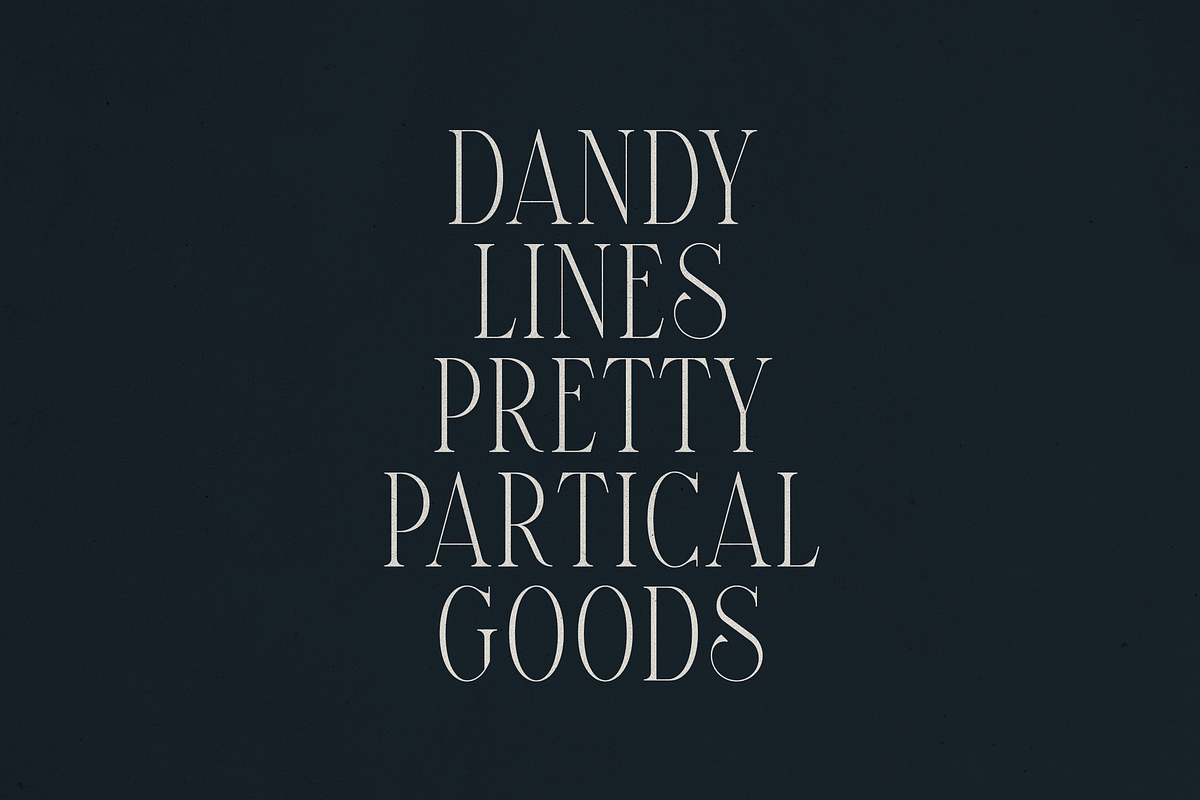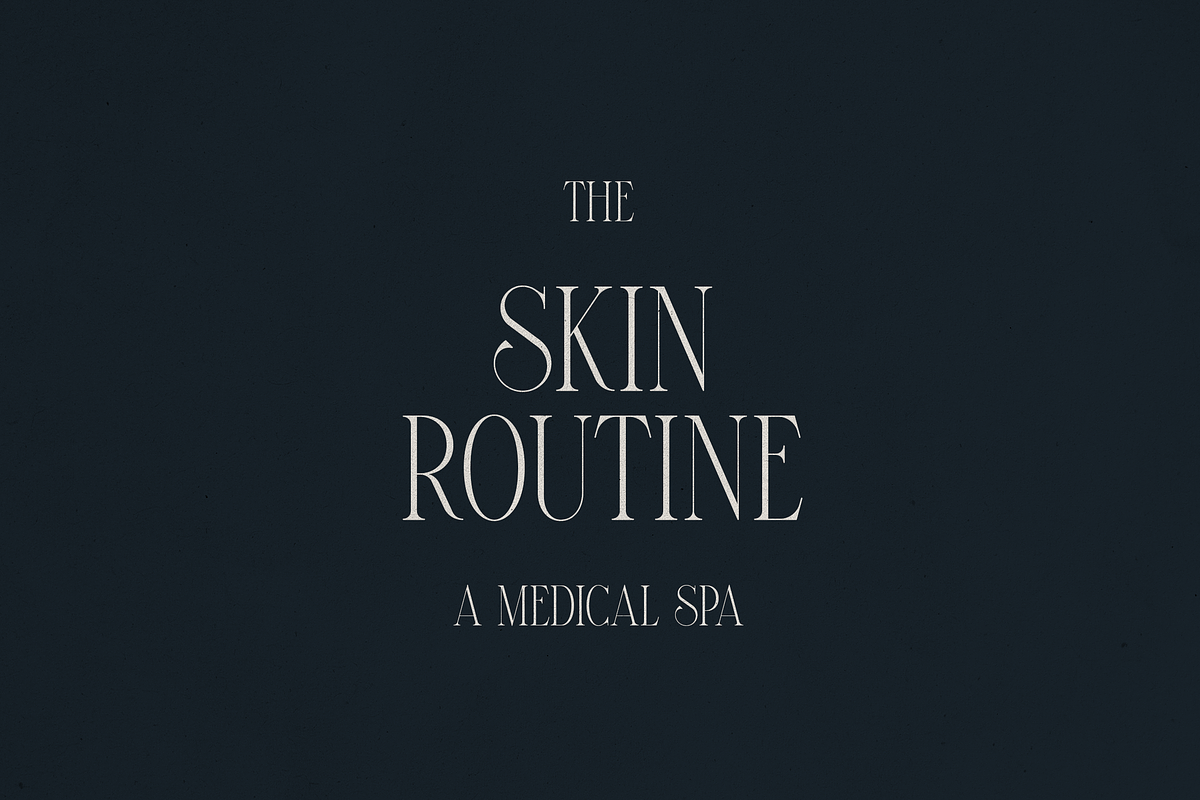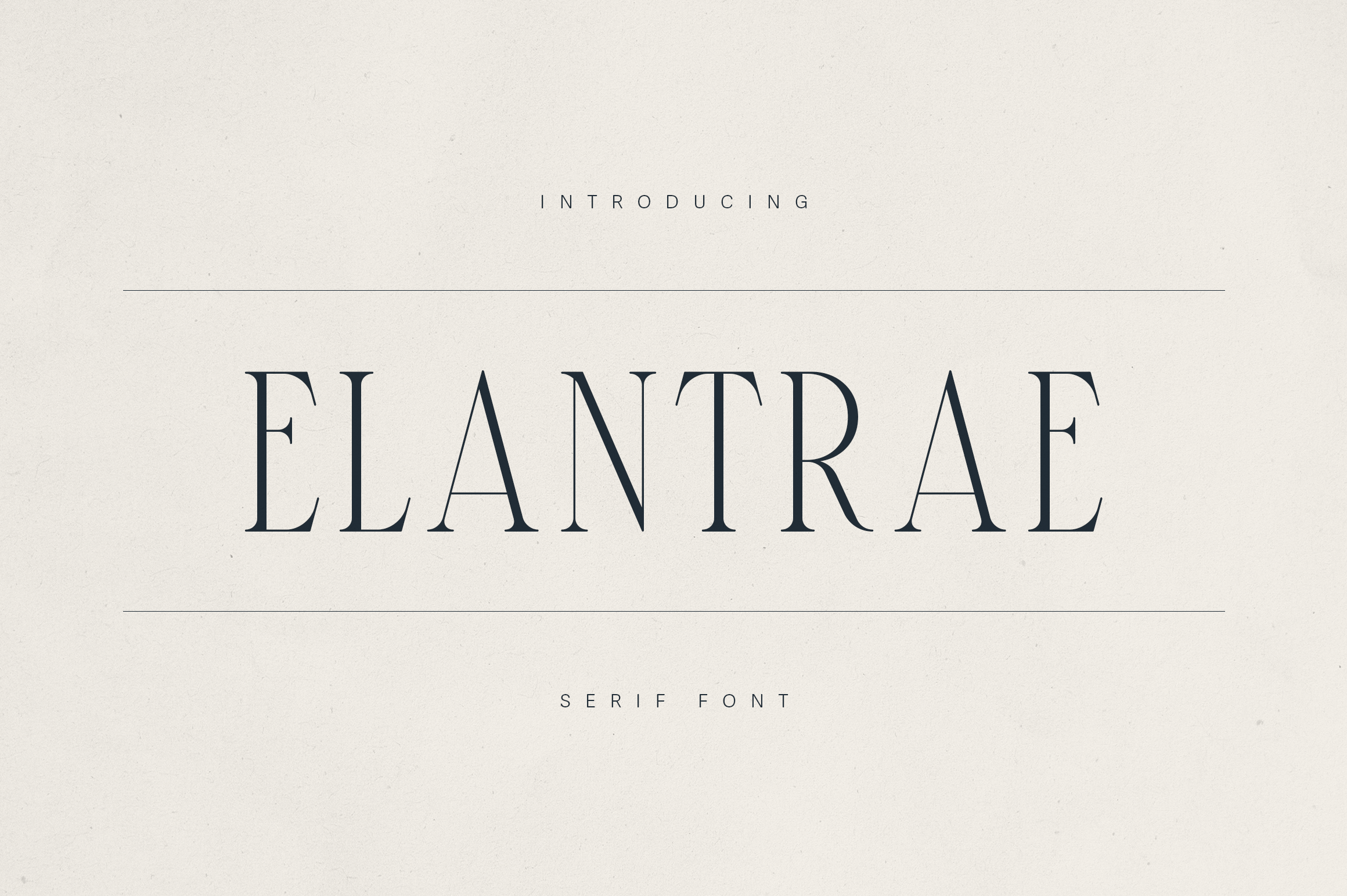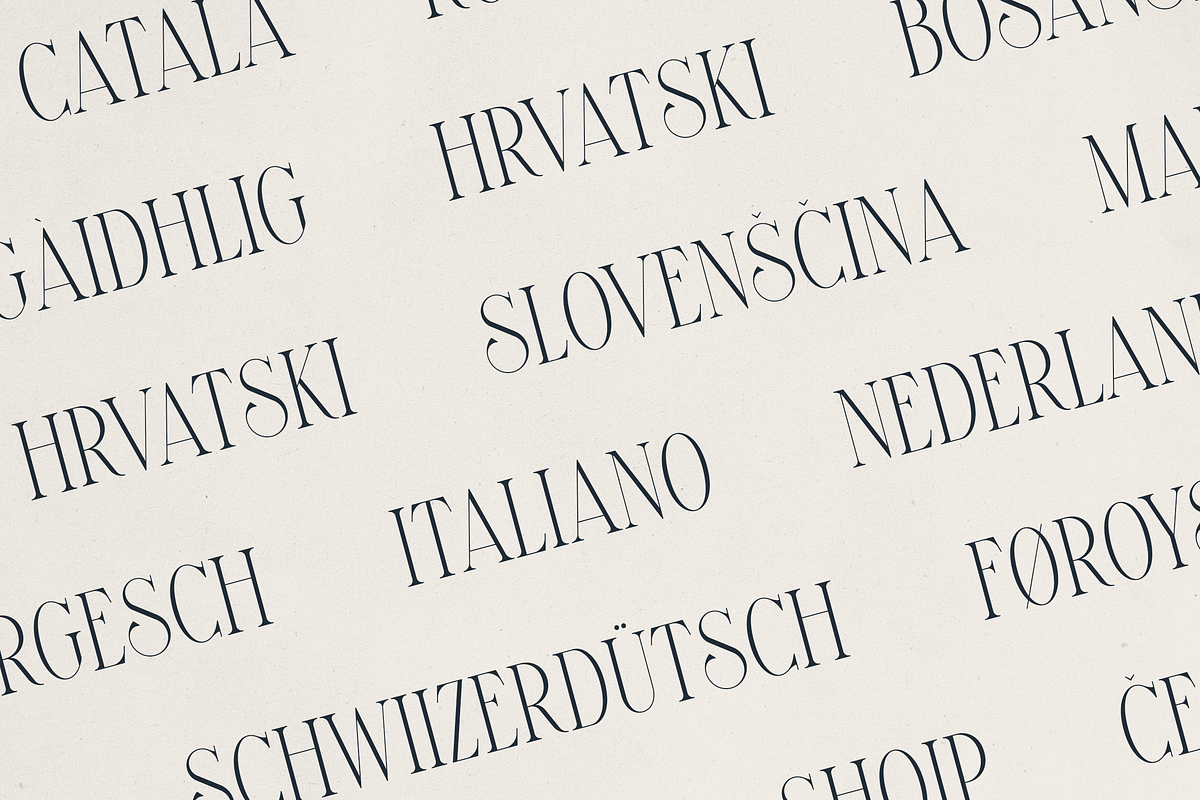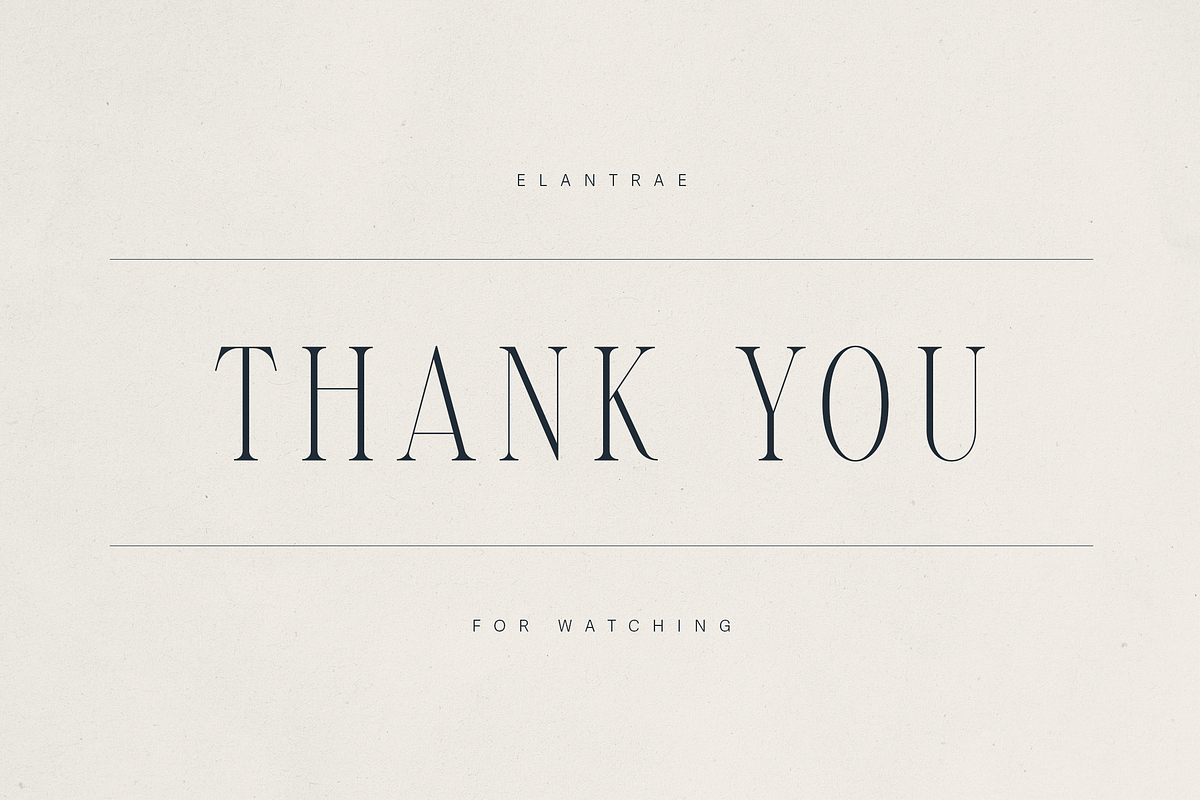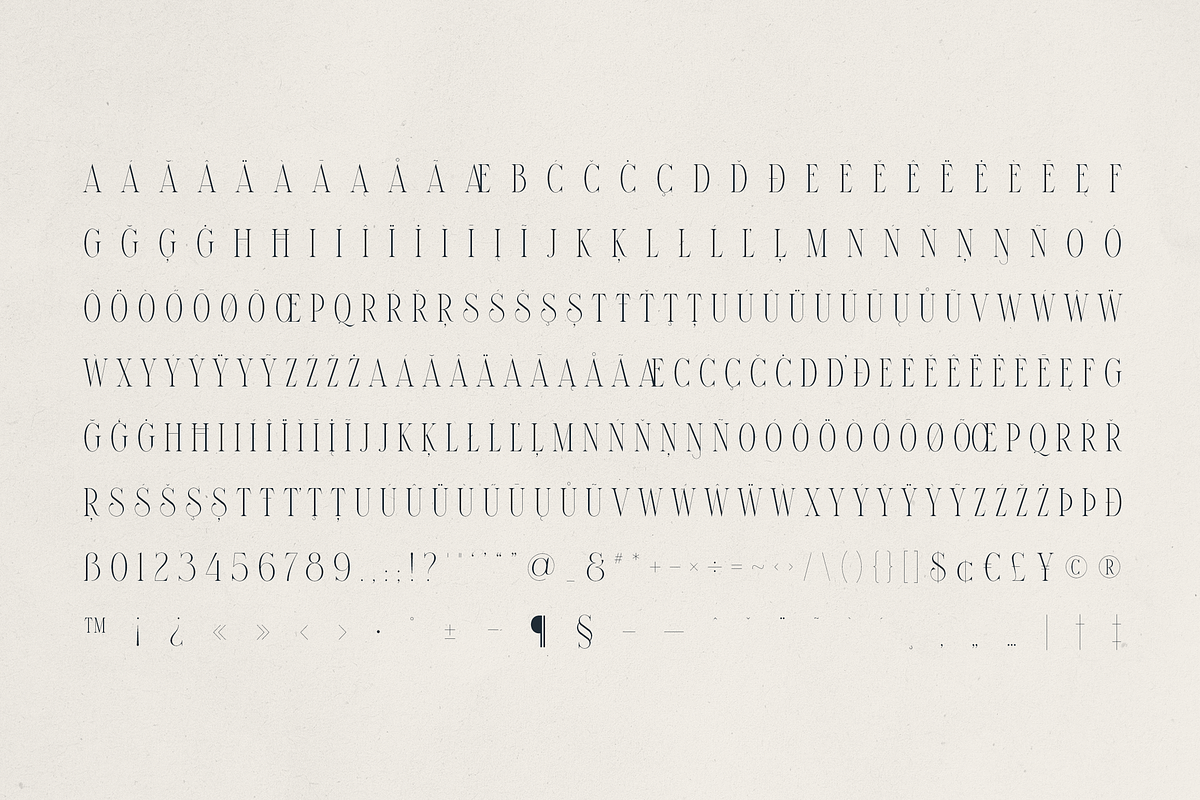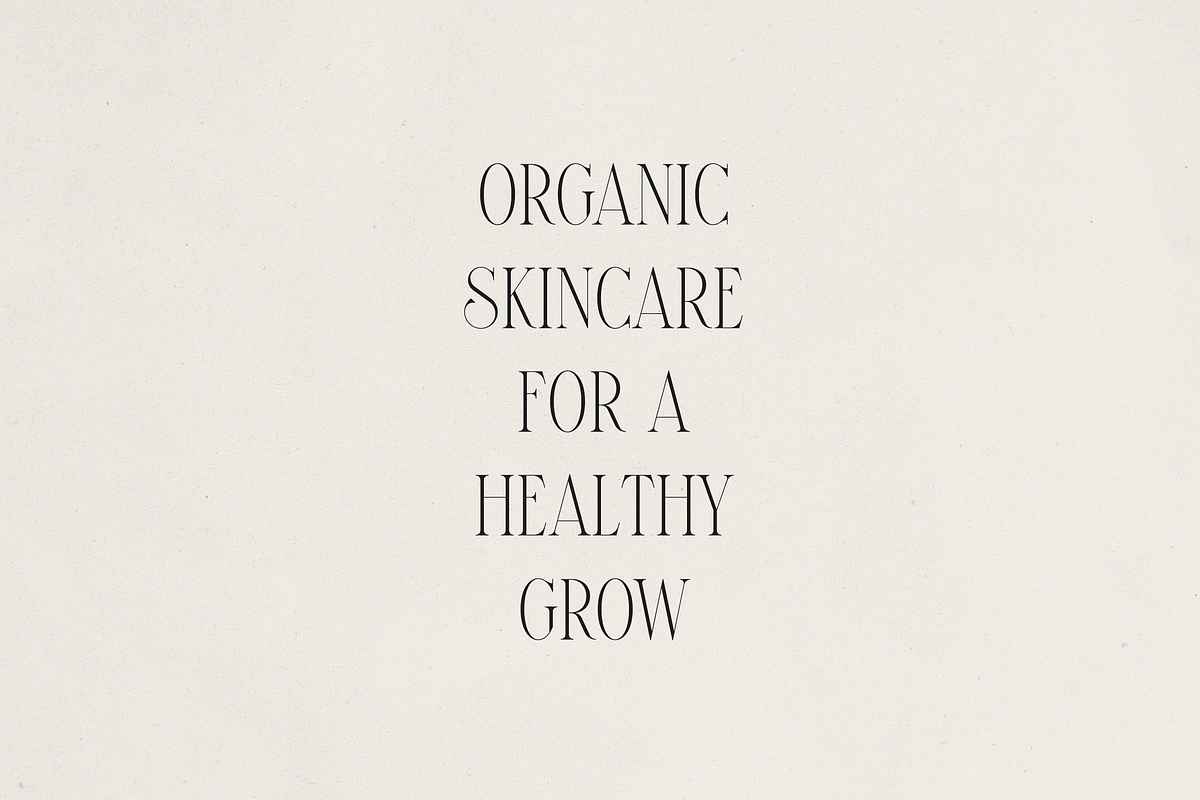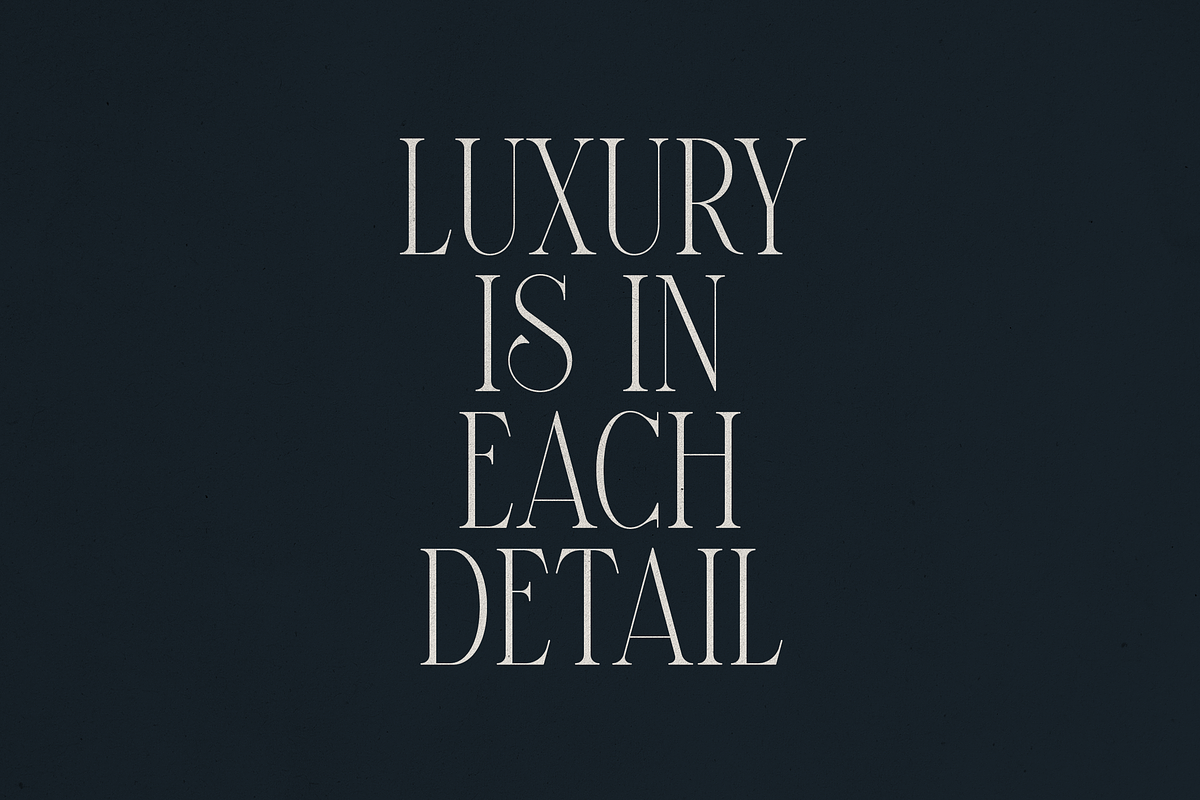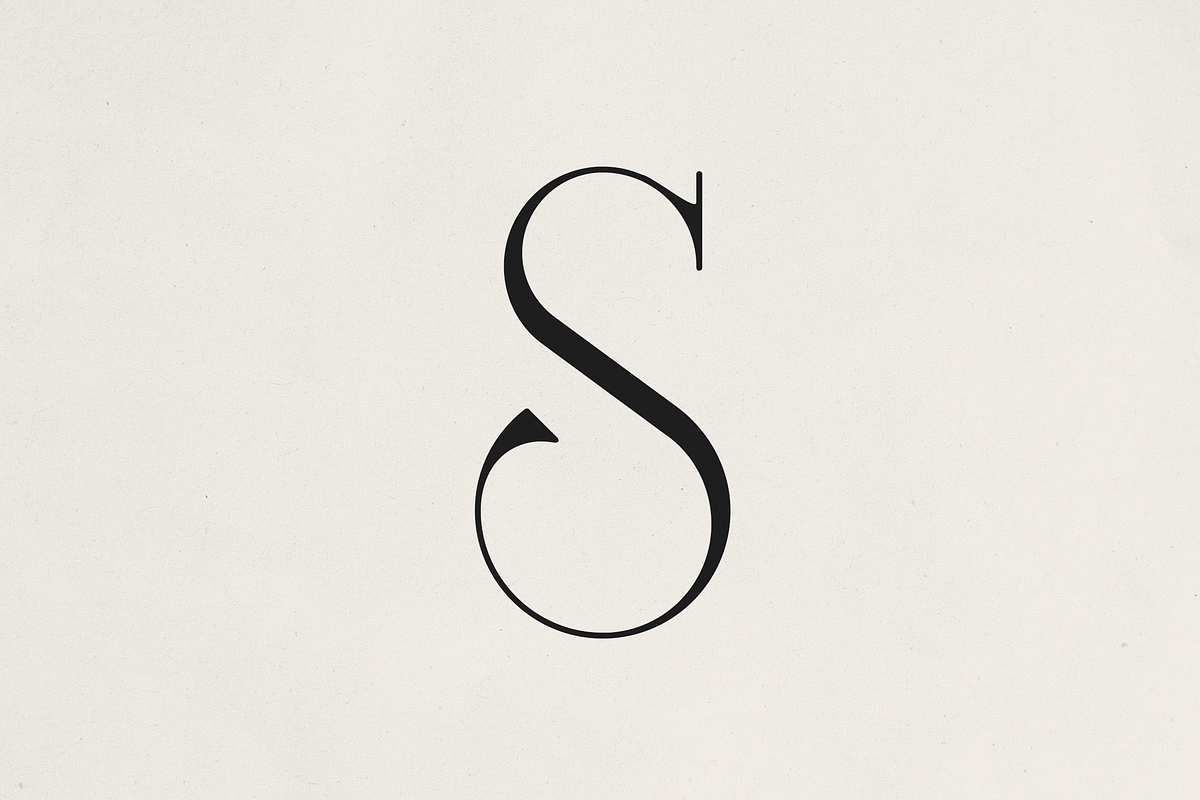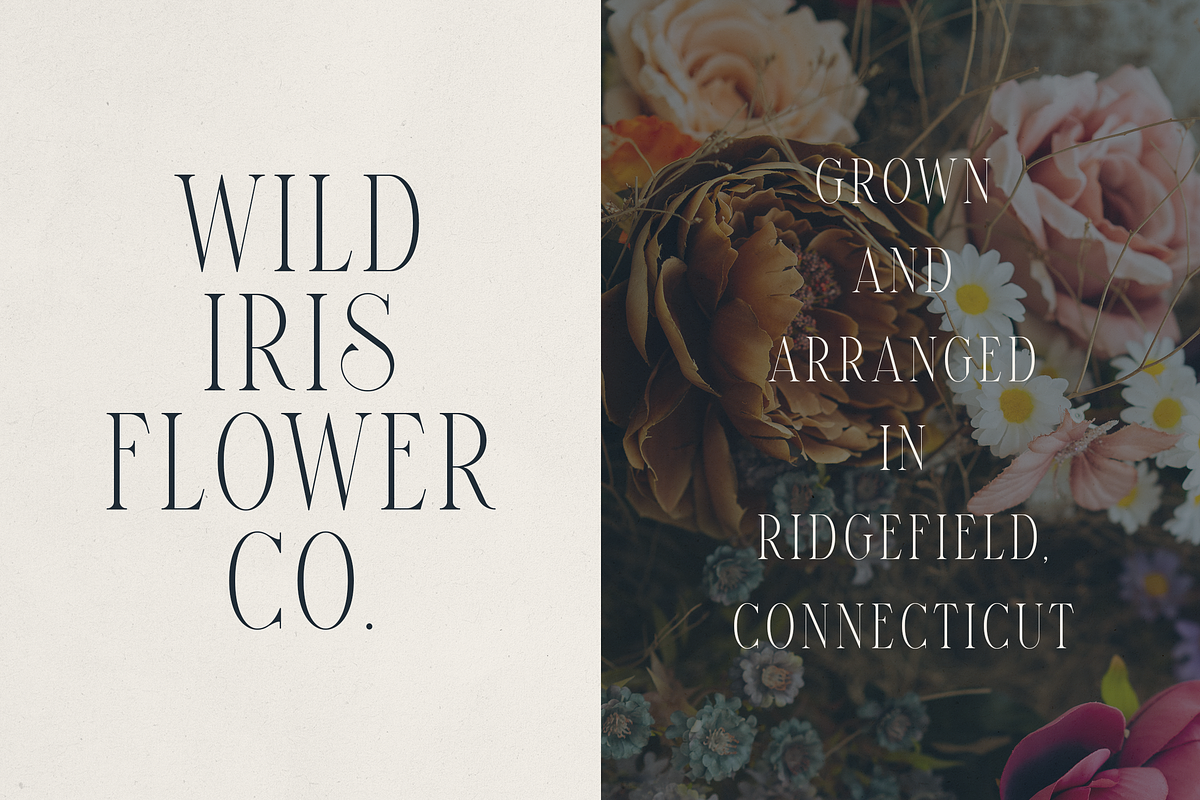
Elantrae – Elegant Modern Serif Font
Elantrae – Elegant Modern Serif Font for Timeless Branding
Introducing Elantrae, a refined serif typeface that blends classic sophistication with contemporary elegance. With its tall, slender letterforms, high contrast strokes, and graceful curves, Elantrae is designed to elevate your branding, editorial, and luxury design projects.
Perfect for fashion labels, beauty brands, high-end packaging, wedding stationery, and boutique businesses, Elantrae delivers a modern yet timeless aesthetic. Its subtle vintage undertone and stylish ligatures make it ideal for logos, magazine headlines, product labels, and refined social media content.
- Elegant high-contrast serif style
- Uppercase font
- Extensive multilingual support (87+ languages)
- Punctuation, numerals, and special symbols
- Perfect for print and digital use
Whether you're crafting a romantic floral brand, a skincare label, or a boutique coffee shop identity, Elantrae adds a luxurious, editorial feel to every detail.
Ideal for: Luxury branding, fashion lookbooks, skincare & spa identity, boutique packaging, wedding invitations, and editorial layouts.